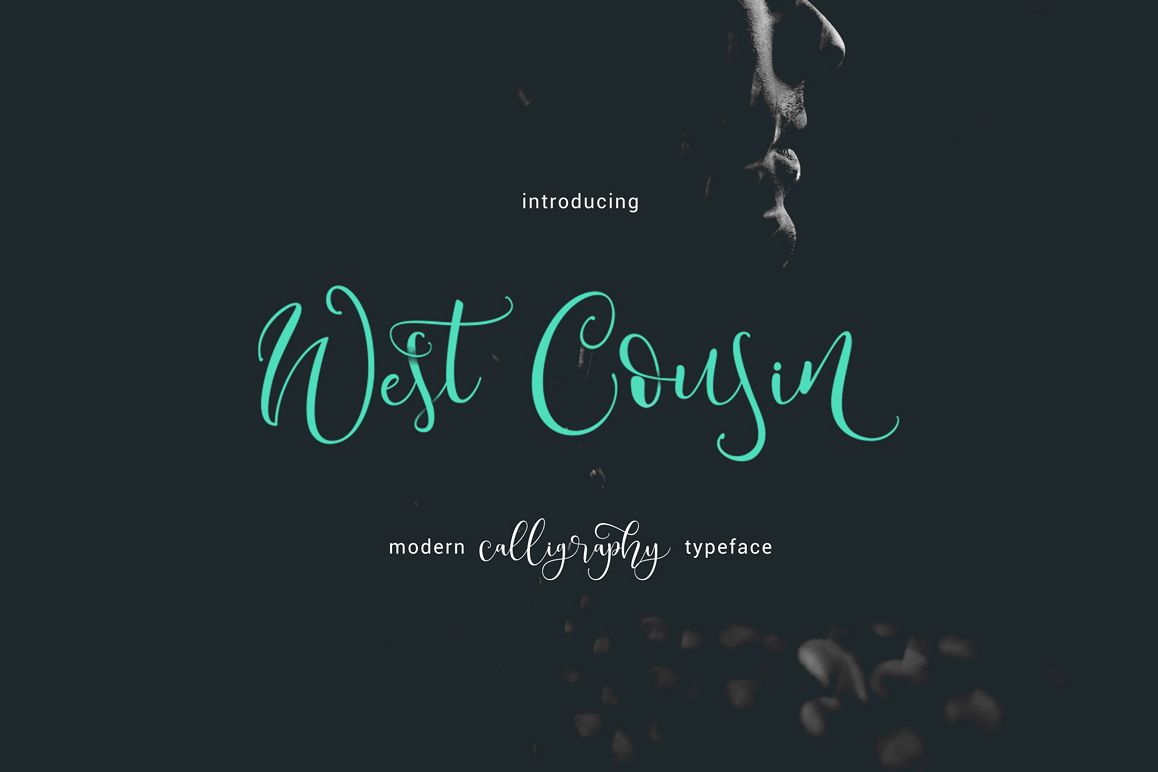
West Cousin Typeface
This is West Cousin Typeface, a modern calligraphy font. West Cousin a beautiful for logotype, website header, fashion design,wedding card design and any more. West Cousin comes with elegant style, it contains a full set of lower & uppercase letters, a large range of punctuation, numerals, and multilingual support.Every single letters have been carefully crafted to make your text looks beautiful. With modern script style this font will perfect for many different project ex: quotes, blog header, poster, wedding, branding, logo, fashion, apparel, letter, invitation, stationery, etc.
The West Cousin features:
• Uppercase & lowercase
• Stylistic alternatives & swashes
• Initials & finals
• International characters (Multilingual)
• Punctuation & symbols